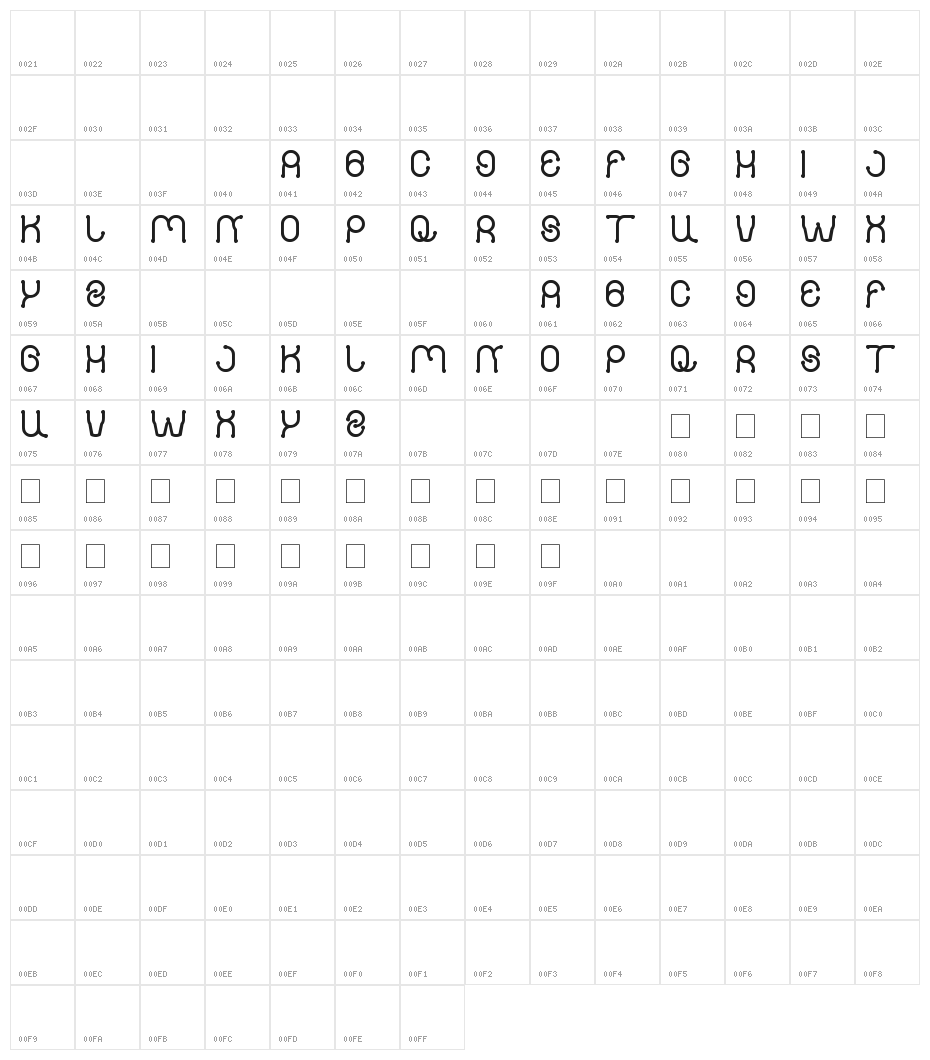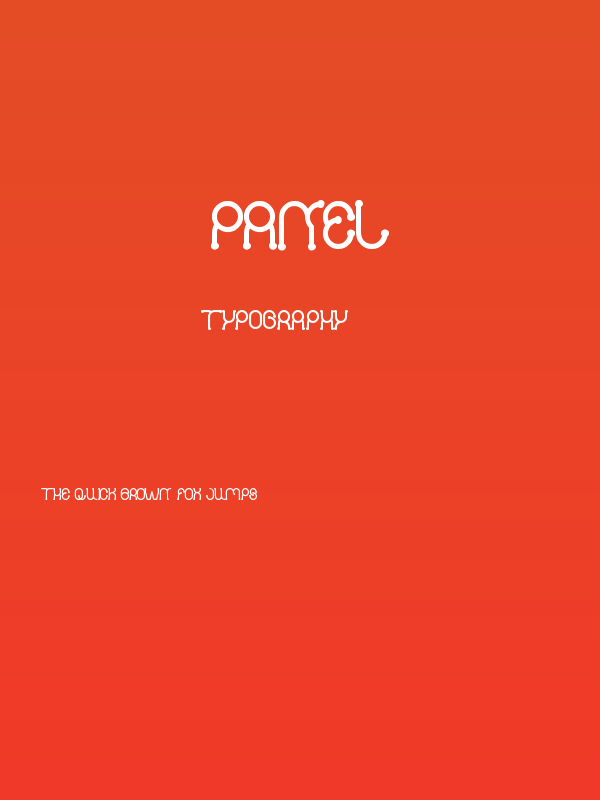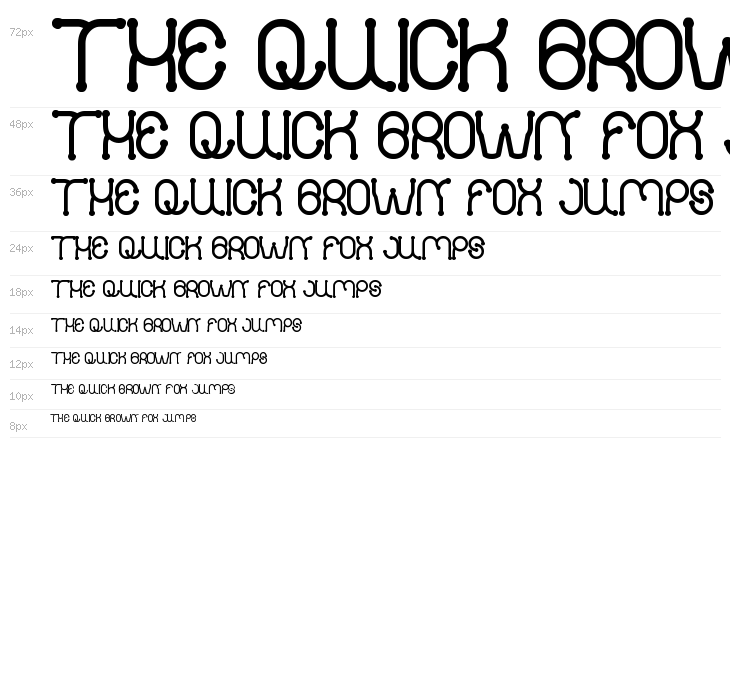
Panel Font
Panel Description
This font features a unique and playful design with rounded, looping strokes that create a sense of whimsy and creativity. The characters are interconnected with a consistent line weight, giving it a cohesive appearance. The font's distinctive style is characterized by its bold, circular terminals and smooth curves, making it stand out as a decorative choice. It maintains a consistent height across all characters, ensuring readability while adding a touch of artistic flair. The overall design is both modern and retro, appealing to those looking for a font with personality and charm.
| Overall Style | Modern, Retro |
| Proposed Projects | Ideal for creative projects such as children's books, playful branding, posters, and invitations. |